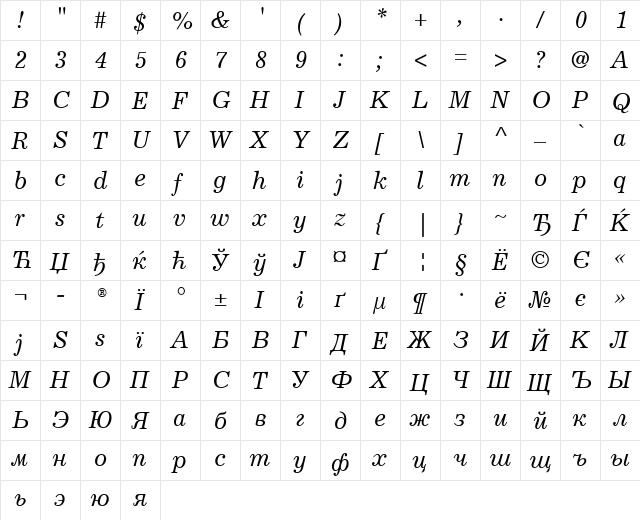
ExcelsiorCyr Upright Italic
Design Context for ExcelsiorCyr Upright Typeface
ExcelsiorCyr Upright offers clean, dependable letterforms without strong stylistic allegiance, making it a practical choice for designers who need flexibility. The dynamic lean of this cut emphasises speed and emphasis in any layout.